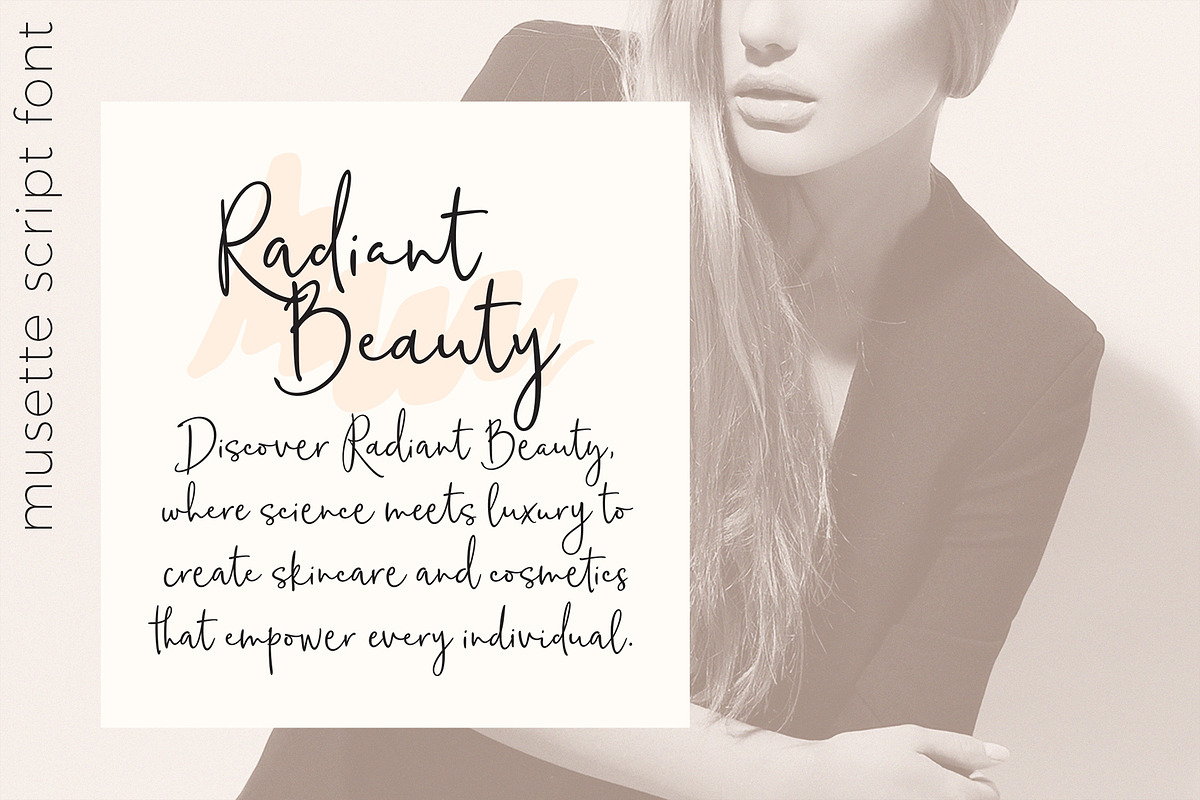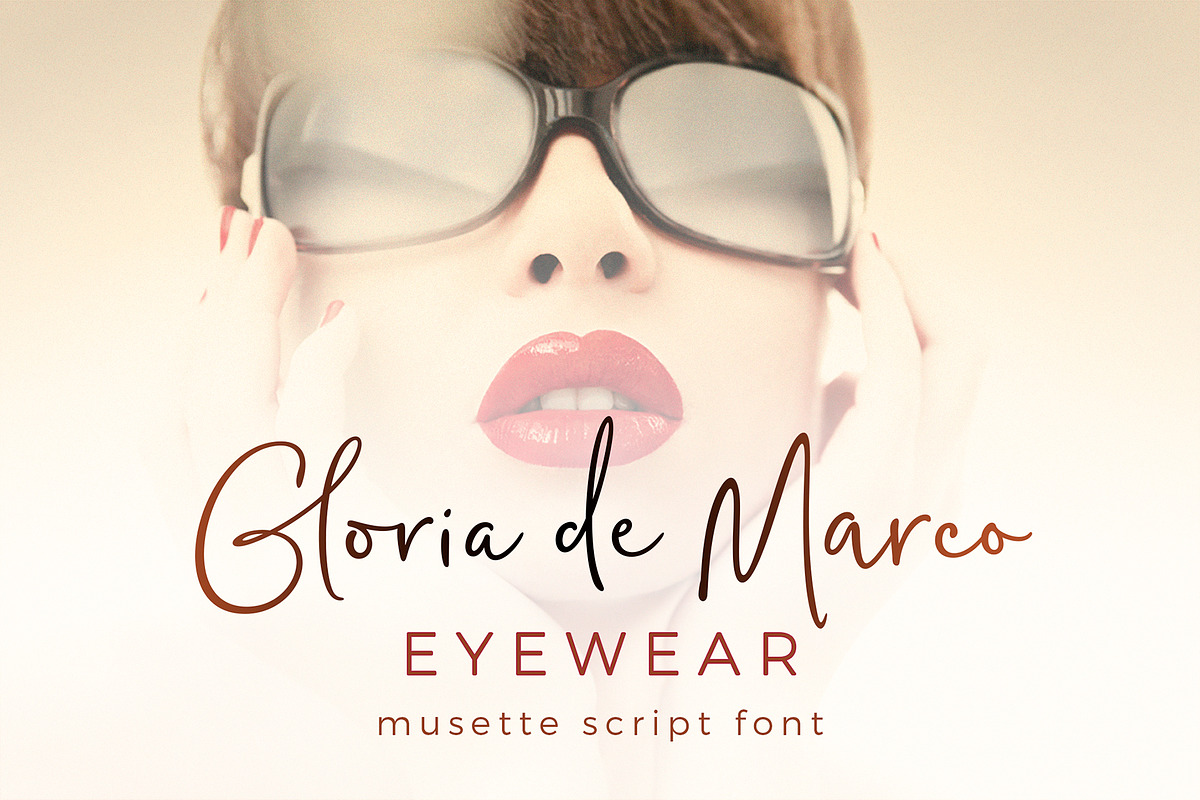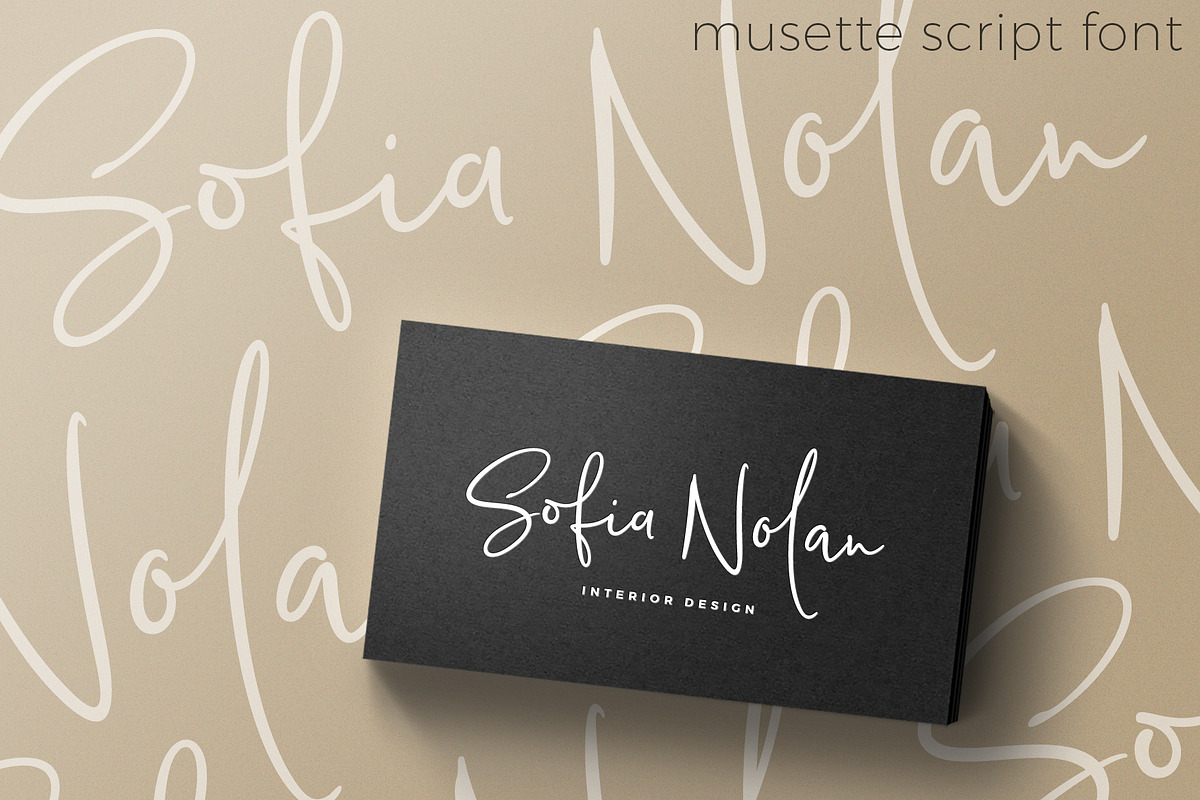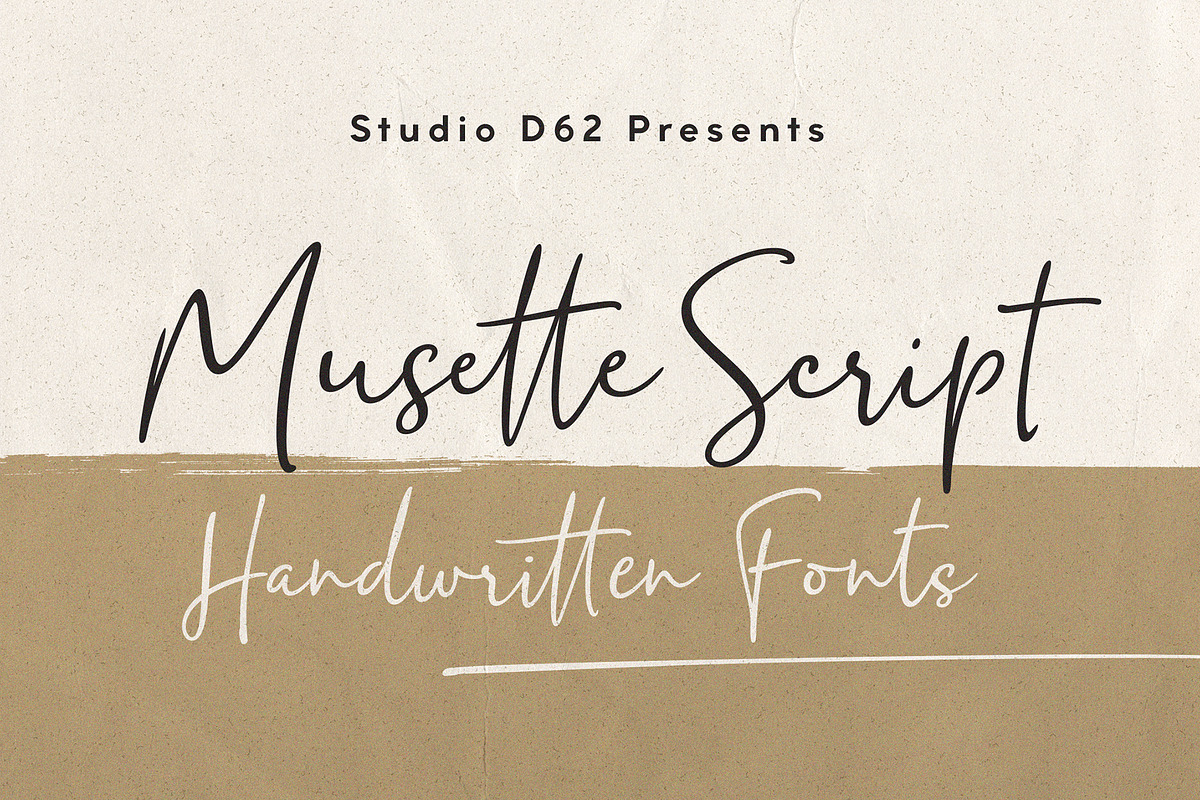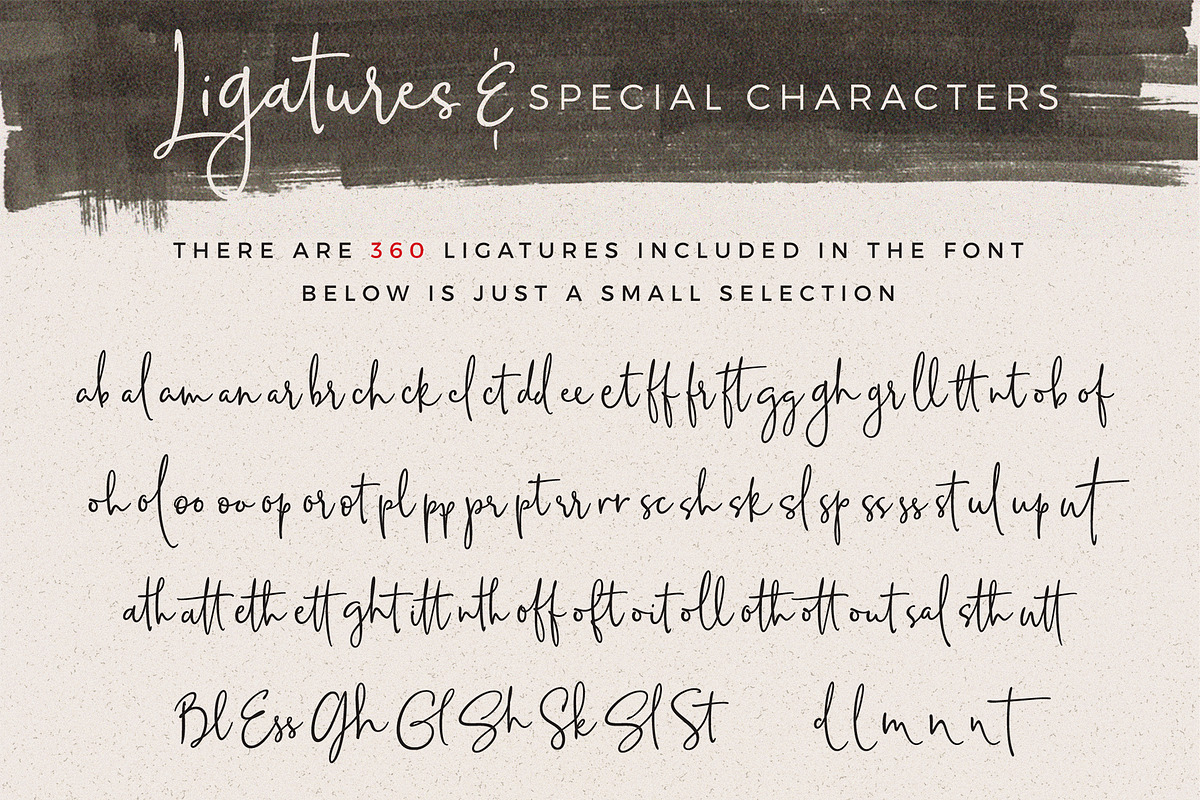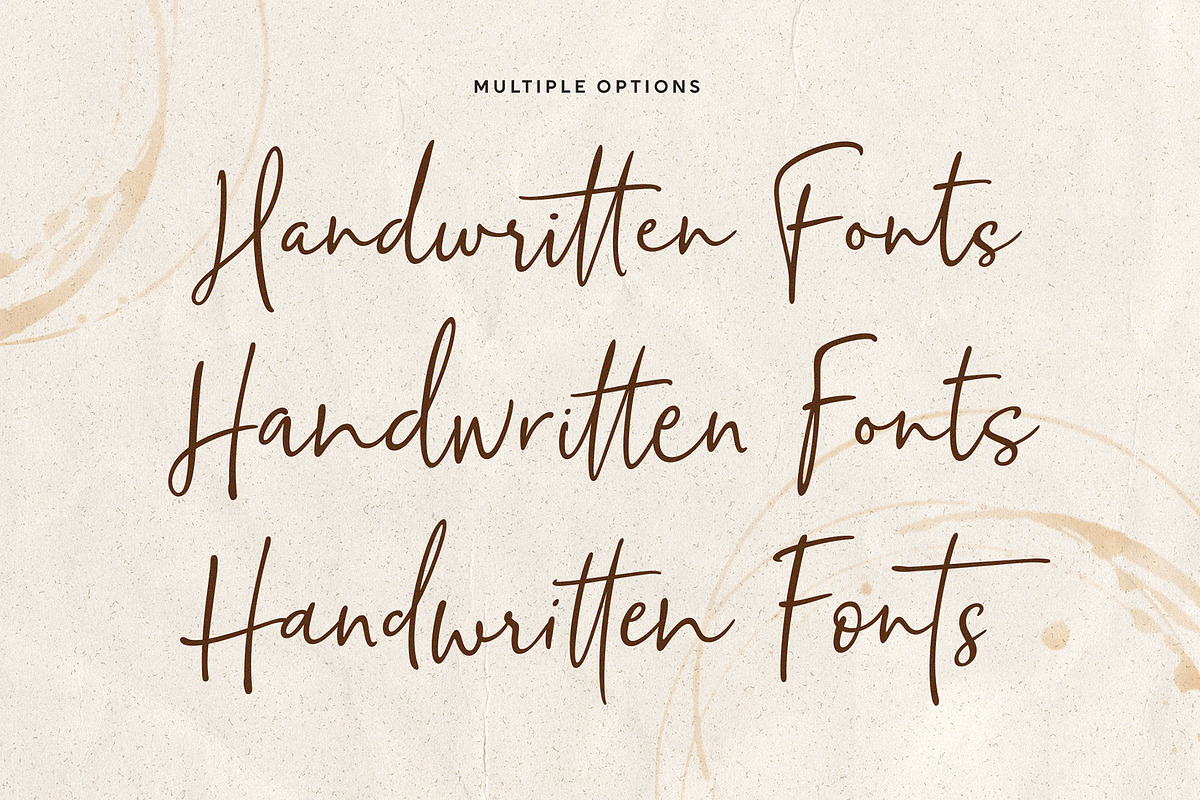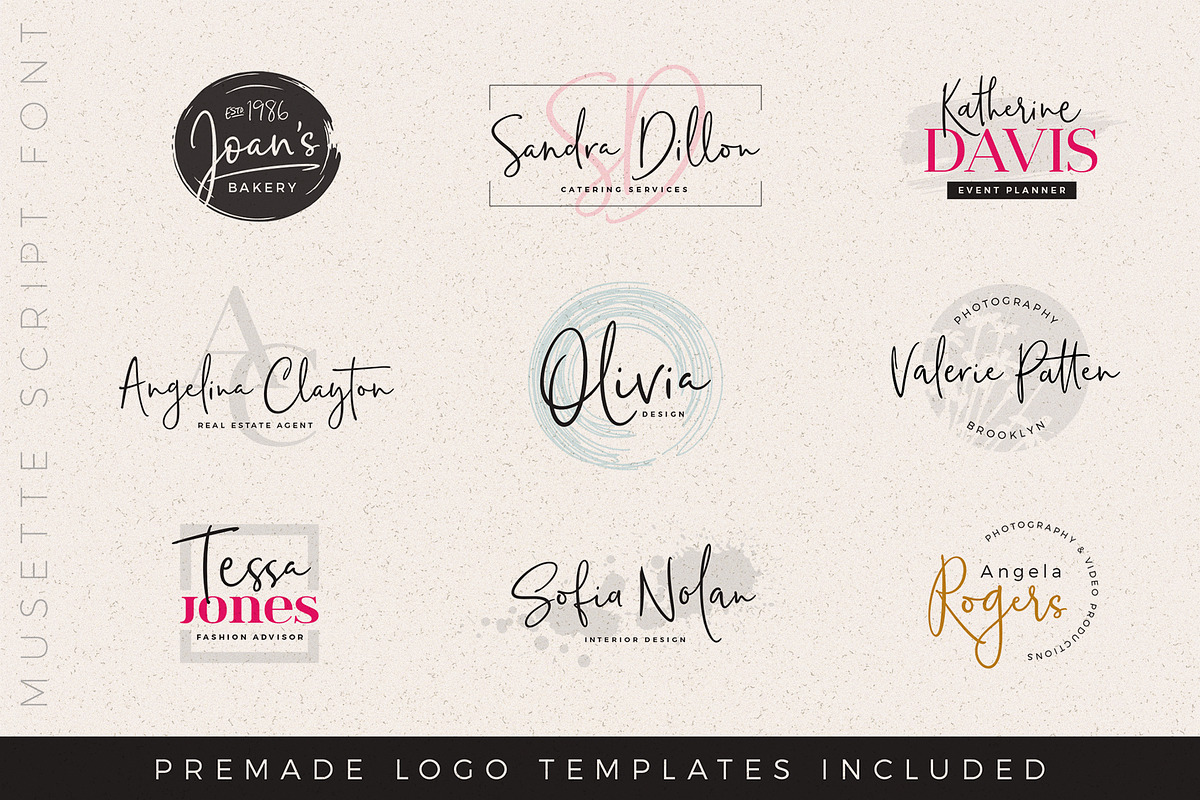
Musette Script
Introducing Musette Script, a modern, versatile font based on hand lettered forms with THREE complete character sets including upper and lower cases and foreign characters, in both regular and italic styles with 360 ligatures and a nice set of catchwords, swashes, arrows and circles to accent your designs.
The characters have clean edges while keeping the interest and flowing feeling of hand lettered forms. If you use all the alternate characters and ligatures, you'll be able to design things that truly look hand-lettered and spontaneous. We designed all the character sets to work together, but each set can also stand on its own.
Musette is perfect for blogs, advertisements, social media posts, wedding suites and much more. Check out our previews to see how versatile this font can be.
Musette supports Western European Languages and has three complete sets of foreign characters.